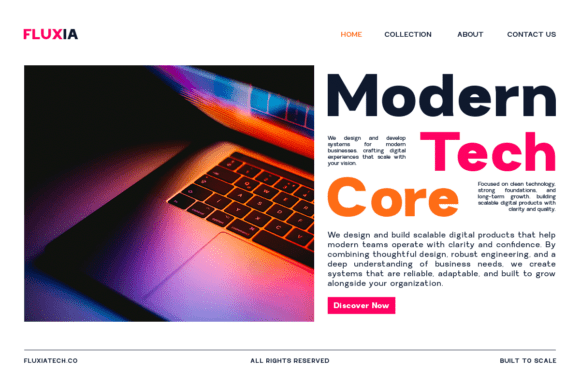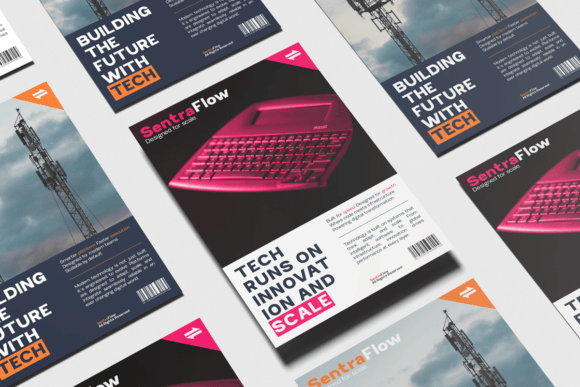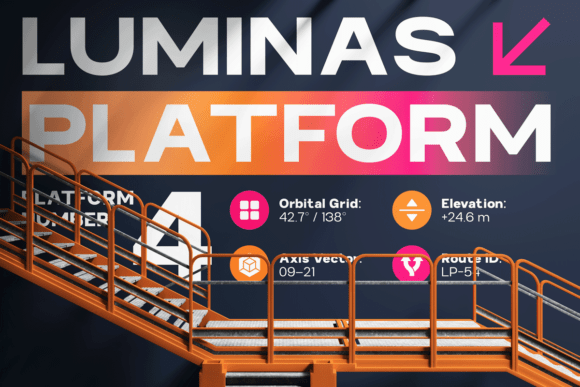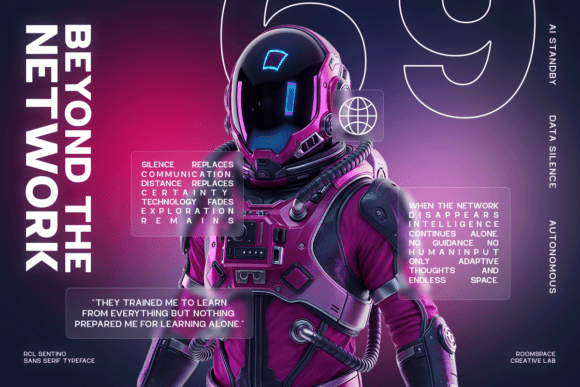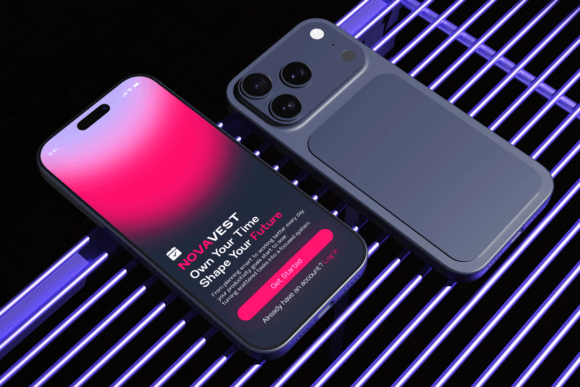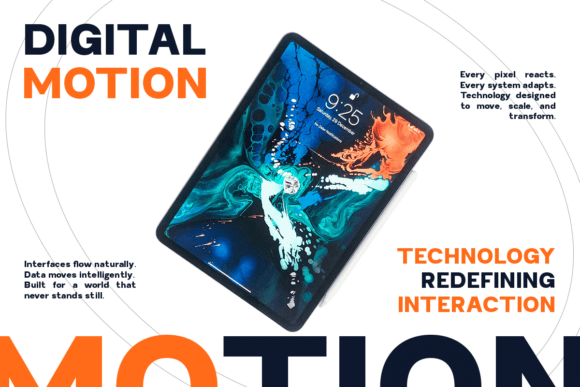
Introduction to Sentino Font
As designers, we’ve all been there – staring at a blank screen, trying to decide on the perfect font for our creative project. The search can be overwhelming, especially when faced with the daunting task of finding a typeface that’s both visually appealing and functional. But what if I told you that there’s a font family that can simplify this process and elevate your design to the next level? Enter Sentino Font, a clean and minimalist sans-serif font family that’s been carefully crafted to meet modern design demands.
With its neutral structure and refined proportions, Sentino Font offers a balanced and contemporary typographic voice that feels calm, professional, and highly adaptable. Whether you’re working on a corporate identity, tech startup, or editorial design project, this versatile font is the perfect design resource to help you achieve your creative vision.
But what sets Sentino Font apart from other high-quality font families is its simplicity and flexibility. With 7 weights plus expanded versions, this comprehensive toolkit is designed to help you tackle even the most complex design projects with ease. And the best part? You can download it for free and start using it in your next creative project today!
Key Features of Sentino Font
- High-quality design resource for creative projects: Sentino Font is a premium-quality font designed to elevate your designs and add a touch of sophistication.
- Large character set and scalable: The Sentino Font features a large character set, including uppercase and lowercase letters, numbers, and special characters, and is scalable to any size, making it perfect for posters, billboards, and other large-format designs.
- Unique, modern design: Sentino Font features a unique, modern design that is perfect for creative projects, including logos, branding, packaging, and advertising.
Honest Review: Sentino Font
As a designer, I’m always on the lookout for high-quality design resources to elevate my creative projects. The Sentino Font is a recent discovery that has caught my attention, and I’m excited to share my honest review with you.
- ✨ Elegant and modern design aesthetic that’s perfect for contemporary projects.
- ✨ Excellent legibility, even at small font sizes.
- ✨ Supports a range of languages, making it a versatile choice for international projects.
- ⚠️ Limited character set, which may not be ideal for projects that require a wide range of special characters.
- ⚠️ No transparent background option, which can be a drawback for designers who need to create complex compositions.
Overall, I’m impressed with the Sentino Font’s quality and versatility. While it may not be perfect for every project, it’s a solid choice for designers who need a reliable, high-quality font for their creative projects. Whether you’re working on a logo design, brochure, or website, the Sentino Font is definitely worth considering.
By incorporating Sentino Font into your design arsenal, you’ll be able to add a touch of sophistication and elegance to your projects. Its sleek, modern aesthetic is perfect for a wide range of applications, from branding and marketing materials to digital displays and print publications. So why wait? Download Sentino Font today and discover a world of creative possibilities waiting to be explored!